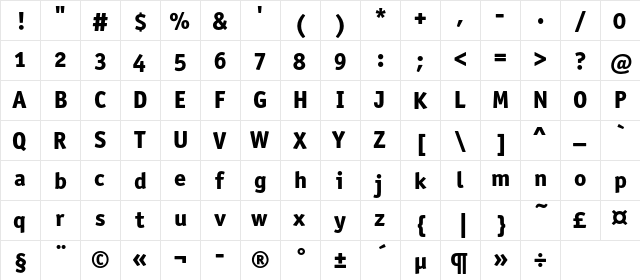
OfficinaSansExtraBoldOSC Regular
Design Context for OfficinaSansExtraBoldOSC Typeface
OfficinaSansExtraBoldOSC is a composed and adaptable typeface that performs quietly and consistently across a wide range of design contexts. The heavy weight commands attention and anchors typographic hierarchies.